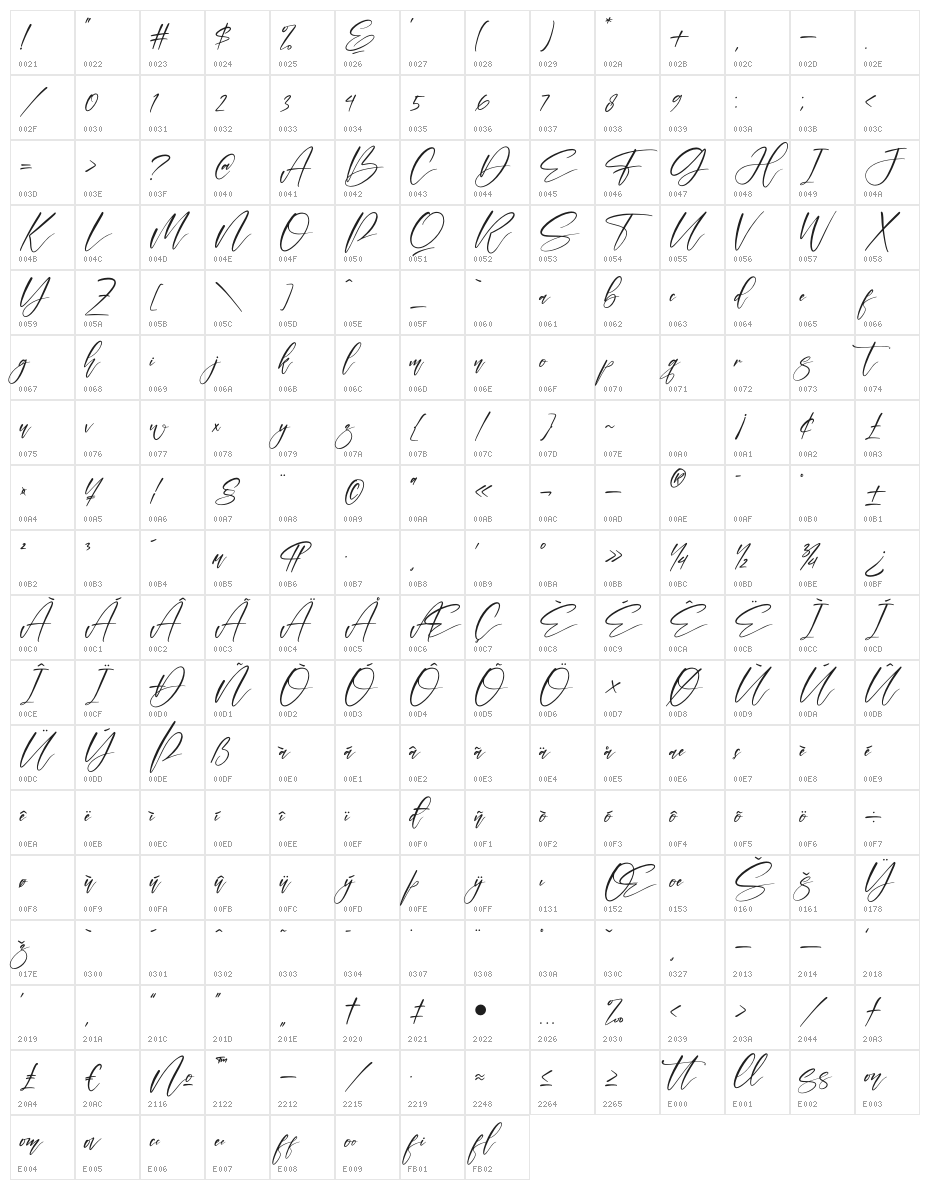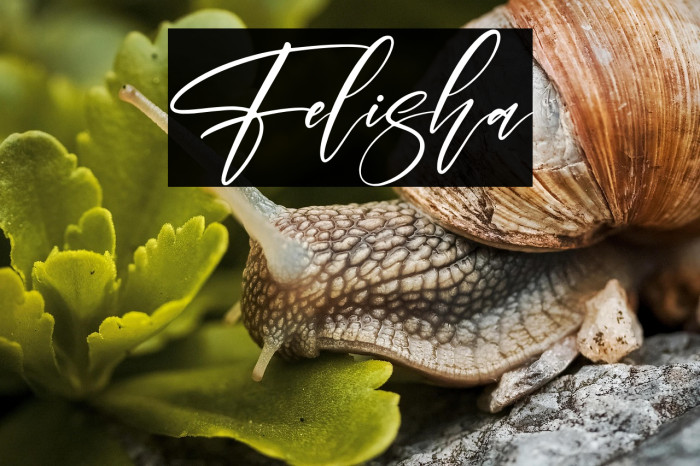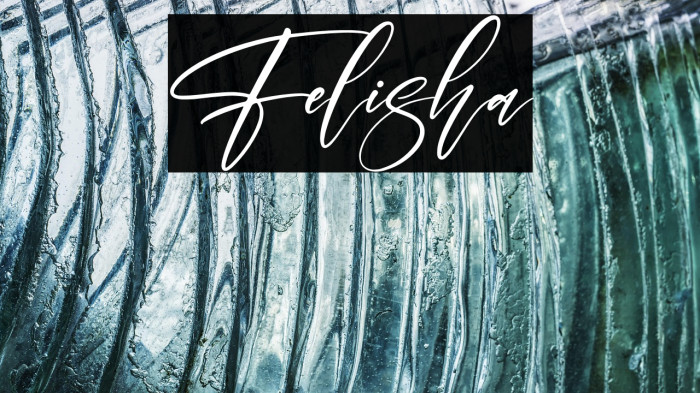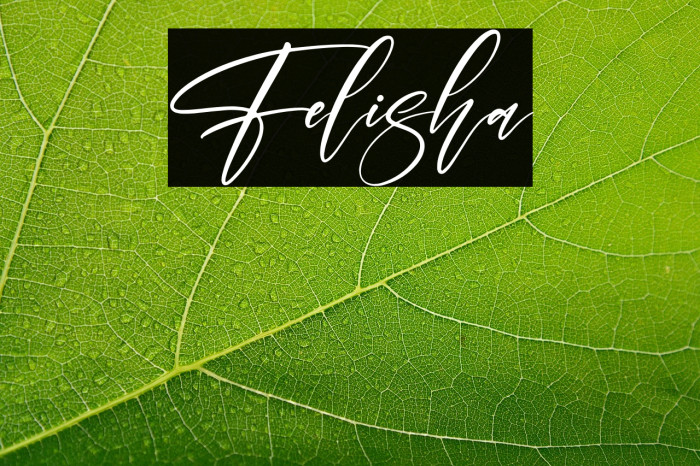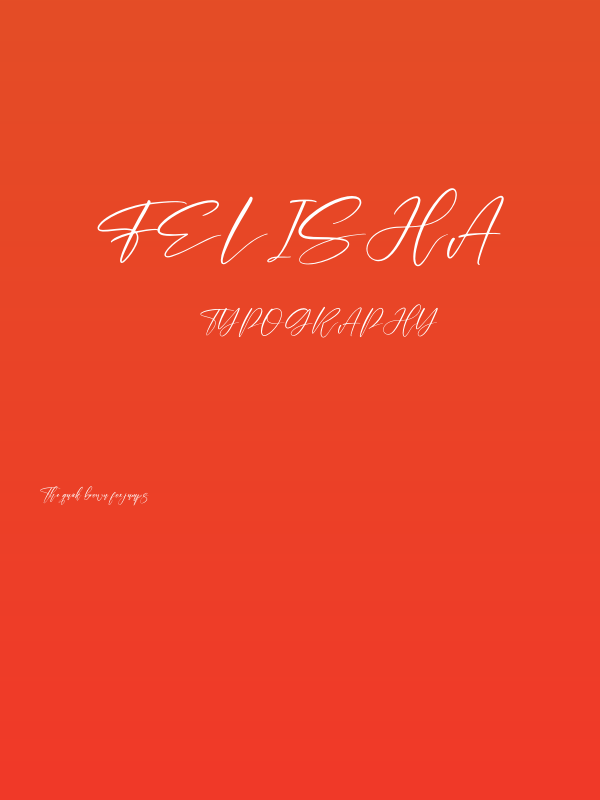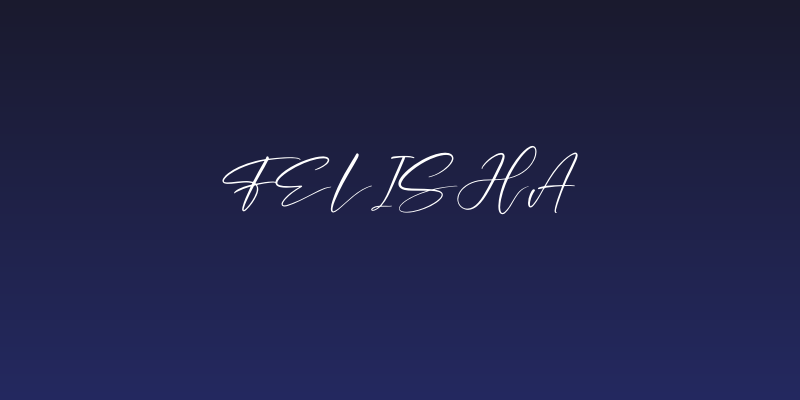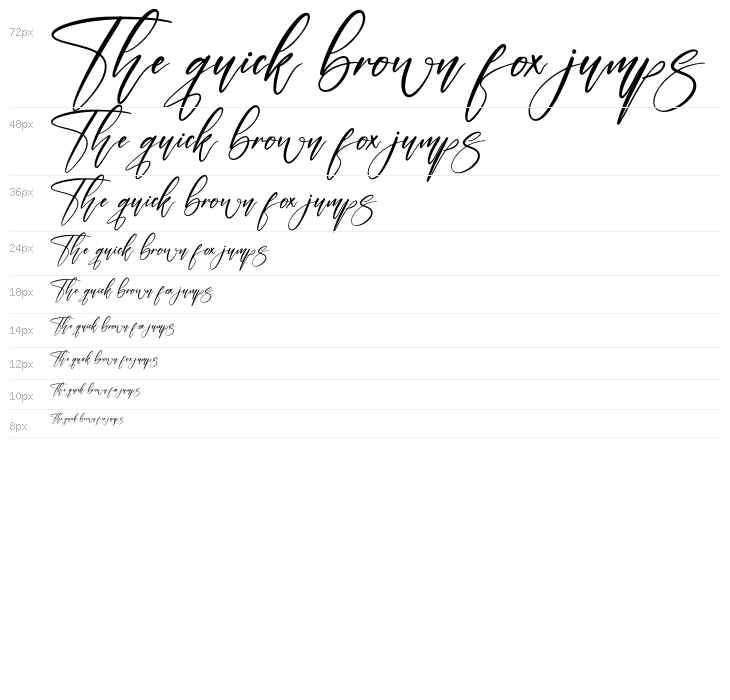
Felisha Font
Felisha Description
This font features an elegant and flowing script style, characterized by its smooth, cursive lines and graceful curves. The uppercase letters are slightly more restrained, maintaining a consistent height, while the lowercase letters exhibit more flourish and variation in stroke. The numerals are designed to match the overall aesthetic, with a slight slant and delicate loops. Special characters are integrated seamlessly, maintaining the font's cohesive and artistic appearance. This font exudes a sense of sophistication and creativity, making it ideal for projects that require a personal and artistic touch.
| Proposed Projects | Ideal for wedding invitations, greeting cards, branding projects, and elegant logos. |